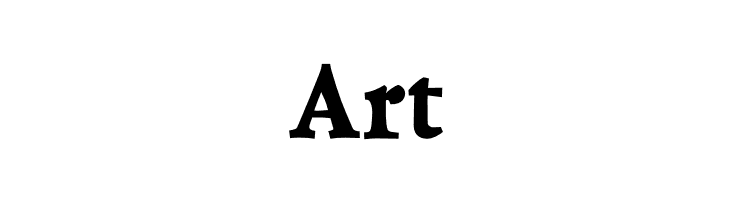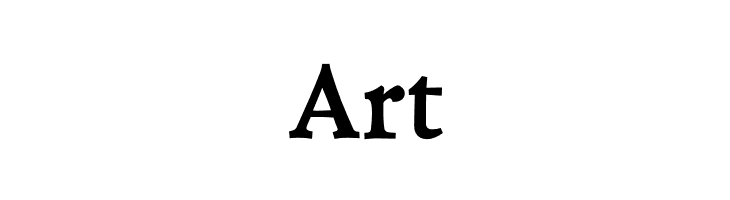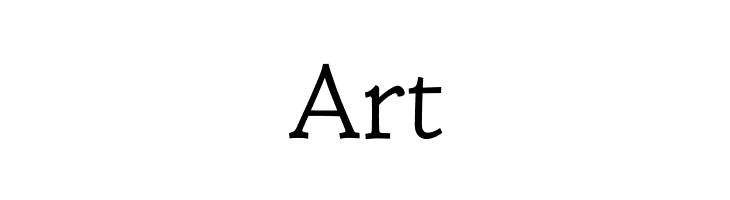
• Coelacanth Subheading Semibold
A classic serif font with elegant curves and a semi-bold weight.
• Coelacanth Caption Bold
A bold, serif font with a hand-crafted, distinctive style.
• Coelacanth Subcaption Heavy
A bold, serif font with angular serifs and a strong, distinctive style.
• Coelacanth Subcaption Bold
A bold, classic serif font with high contrast and angular serifs.
• Coelacanth Pearl Bold
A bold serif font with a handcrafted, slightly irregular style.
• Coelacanth Pearl
A classic serif font with a vintage flair, offering elegance and readability.
• Coelacanth Subcaption Light
A classic serif font with light weight and elegant, elongated characters.
• Coelacanth Subheading
A classic serif font with elegant, sharp serifs and a traditional yet modern appeal.
• Coelacanth Subheading ExtraLight
An elegant and whimsical serif font with refined curves and sharp serifs.
• Coelacanth Caption
A classic serif font with an organic, historical feel and elegant serifs.